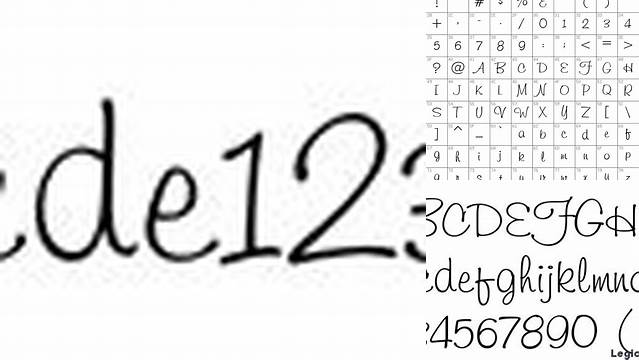
Freehand 591 Std Regular Font: A Comprehensive Guide
Understanding the Essence of Freehand 591 Std Regular
Guys, let's dive headfirst into the world of typography, shall we? We're going to explore the Freehand 591 Std Regular font – a true gem in the vast universe of fonts. Understanding what makes this font tick is the first step. Essentially, Freehand 591 Std Regular is a typeface, a family of fonts, specifically designed with a 'regular' weight. This means it sits comfortably in the middle ground, not too bold, not too light. It's designed to be easily readable and versatile, making it a popular choice for various applications, from body text in books and articles to headings and display text. The 'Std' in the name refers to 'Standard', hinting at its broad usability. The 'Freehand' part, well, that suggests a certain style, hinting at a hand-drawn or sketched aesthetic. The beauty of Freehand 591 Std Regular lies in its simplicity and readability. It avoids unnecessary flourishes, ensuring the focus remains on the message being conveyed. This characteristic makes it a strong contender for projects needing a clean and approachable visual presentation. The font's designers clearly prioritized clarity and legibility, making it an excellent option for long-form content and general communication needs. Its design supports readability and the flow of words which makes it an optimal choice for digital and printed formats. The style generally leans towards the contemporary, making it a versatile choice across various industries and projects. Whether it’s for branding, website design, or print materials, this font's functionality and aesthetic appeal can be leveraged to communicate with clarity and style. It is made to be flexible and works well with many different graphic elements, and in combination with other fonts. The visual nature of Freehand 591 Std Regular also makes it easy to pair with other styles, offering flexibility and control when designing complex layouts.
Freehand 591 Std Regular: Design and Characteristics
Alright, let's get into the nitty-gritty of what makes Freehand 591 Std Regular tick. This font boasts a design that leans towards the contemporary, though it has its own distinctive personality. Its characteristics include clean lines, a balanced weight, and a focus on readability. This means that it is a font that generally avoids excessively ornate details. Instead, its emphasis is on the simplicity of the letterforms. The designers have carefully crafted each character to ensure that it's easily recognizable, even at smaller sizes. Its 'regular' weight provides a balanced appearance, not too light to appear faint, and not too bold to be overwhelming. This characteristic enhances its versatility and makes it applicable in a wide variety of visual contexts. The proportions of the letters are well-considered, with ample space between them and generous counters (the enclosed spaces within letters like 'o' or 'e'), to enhance legibility. The strokes of the letterforms are typically of consistent weight, which supports a uniform and harmonious visual experience. The spacing and kerning of the letters are carefully considered to optimize the flow of text, a crucial element in any successful typeface. These design choices make the Freehand 591 Std Regular an ideal choice for projects where readability is paramount. Further, the font provides a neutral canvas that allows the focus to be on the message rather than on the design of the letters. This can be very beneficial, especially if you are working with complex layouts or you are trying to make a certain message stand out. The features of this font can also contribute to the professionalism and sophistication of your visual content.
Applications: Where Freehand 591 Std Regular Shines
So, where can you actually use Freehand 591 Std Regular to its full potential, you ask? This font truly shines in a variety of applications. It's a fantastic choice for body text in books, articles, and any long-form content where readability is key. The clean and balanced design of the font makes it easy on the eyes, enhancing the reading experience. Think about it – imagine this font used in the latest bestseller, a compelling blog post, or a detailed user manual. It lends itself well to digital and print media, bringing consistency and readability across all platforms. In web design, this font can be used for headings, subheadings, and body text, ensuring that your website content is both readable and visually appealing. Its contemporary style fits well with modern design aesthetics, helping to create a fresh and engaging online presence. In branding, Freehand 591 Std Regular can be used in various areas. For example, in the creation of logos, taglines, and brand materials. Its versatility allows it to adapt to a variety of brand styles, from minimalist to professional, without overshadowing your messaging. This font is not restricted by any specific industry. From corporate communications to creative endeavors, it has proven itself to be adaptable. It can add a professional and friendly touch to your branding and communication, making it versatile for various kinds of projects. Regardless of your field, Freehand 591 Std Regular is a valuable tool for designers and writers.
Pairing Freehand 591 Std Regular with Other Fonts
One of the cool things about Freehand 591 Std Regular is its ability to play well with others. Choosing the right font pairings can dramatically elevate the visual appeal and readability of your design. A good starting point is to consider contrasting styles. If you're using Freehand 591 Std Regular for body text, you could pair it with a bolder, more eye-catching font for headlines. This creates visual hierarchy, guiding the reader's eye and emphasizing the most important information. The subtle nature of Freehand 591 Std Regular enables it to blend seamlessly with more assertive fonts. When considering pairings, think about the mood you want to create. If your project calls for a professional and clean look, you might pair Freehand 591 Std Regular with a sans-serif font for headings. This will create a consistent and modern aesthetic. If you are going for a more artistic or casual look, experimenting with a serif font for headlines can add a touch of elegance and personality. The goal is to find a balance where the two fonts complement each other, rather than competing for attention. You can use online tools to experiment with font pairings and preview their appearance. These tools provide valuable insights and help you visualize your font choices. The key is to consider the overall tone and objectives of your project and find a combination that effectively communicates your message.
Freehand 591 Std Regular and Web Design Best Practices
Let's discuss how Freehand 591 Std Regular fits into the world of web design. For web designers, this font is a valuable asset for multiple reasons. Its high readability is a huge plus. Online, people often scan content quickly, so the clarity of your font can greatly impact whether your audience engages with your website. Freehand 591 Std Regular ensures that text is easy to read, even at smaller sizes, making it perfect for body text, subheadings, and even navigation elements. In terms of SEO, the legibility that Freehand 591 Std Regular provides can indirectly improve your search ranking. Readers will stay longer on your site if they find your content easy to read. This will increase the time on site and decrease the bounce rate, which are crucial ranking factors. Moreover, the font can be used to establish a clean, professional aesthetic, a critical factor for user experience. A well-designed website with clear typography enhances user trust. You can also customize your website by modifying your Freehand 591 Std Regular to align with your brand identity. Make sure the font is responsive and looks good on all devices. Choose appropriate font sizes, line spacing, and color contrast to enhance readability on different screens. Always test your website on various devices to ensure consistency in your users’ experience. In short, employing Freehand 591 Std Regular effectively can contribute to an aesthetically pleasing and user-friendly website.
Accessibility Considerations for Freehand 591 Std Regular
Okay, let's talk about accessibility. Using Freehand 591 Std Regular in an accessible manner is essential to ensure your content is inclusive and can be enjoyed by all. One of the biggest benefits of this font is its high readability, which is a boon for people with visual impairments. It's designed with clear letterforms and a regular weight, reducing the risk of eye strain and making text easier to decipher. When you're using Freehand 591 Std Regular, pay attention to font size and contrast. Ensure that your font size is large enough for comfortable reading, especially for older users or those with visual impairments. Also, use sufficient contrast between the text and the background. Avoid light text on a light background or dark text on a dark background, as this can be challenging to read. Consider incorporating text alternatives for images and other non-text elements. Screen readers will use these descriptions to convey the meaning of the visual elements to visually impaired users. Ensure your website design is responsive, which means it adapts to different screen sizes and resolutions. This makes your content accessible on a wide range of devices. Consider the needs of users with cognitive disabilities. Use clear and concise language. Avoid complex sentence structures. Structure your content with headings, subheadings, and bullet points to improve readability. Remember that accessibility is an ongoing process, not a one-time fix. Always test your content with different users and devices. By being mindful of these aspects, you can make your website more welcoming and accessible to everyone.
Exploring the Variations: Freehand 591 Family
Let's delve deeper into the family! Freehand 591 Std Regular is the foundation, but there might be more variations. These variations could include different weights like bold or light, or they could come in other styles. Exploring these variations can expand your typographic toolkit, allowing for greater design flexibility. If you are designing for diverse projects, you could use Freehand 591 Std Regular for body text and a bolder variant for headings. This creates a clear visual hierarchy, making it easier for readers to scan and understand the content. Knowing all variations will allow you to achieve a cohesive and consistent design. The variations might also include different widths or condensed styles. You might choose to use these if space is limited. Each variation has its unique characteristics that can be customized to fit your design needs. When you have these options, you can bring more nuance to your design. Always check the available character sets of these font variations. Some variants may have more extended language support than others. This is especially crucial if you are targeting a global audience. With a comprehensive understanding of the whole family, you can strategically build a complete visual identity.
Freehand 591 Std Regular in Branding: Crafting Brand Identity
Let's explore how Freehand 591 Std Regular can be used in branding! This font is very adaptable, making it a great tool for shaping a brand's identity. You could use it in your logo, tagline, or on your website. It gives a professional, yet friendly, appearance. The choice of font is essential in shaping brand recognition. You want a font that not only looks good, but also reflects the brand's values. Freehand 591 Std Regular can be part of that image. You can use it to portray the brand's tone of voice. The font's simplicity and legibility work well for many businesses. This is especially true if you want a reliable and clear brand image. The versatility of Freehand 591 Std Regular means that it can be customized and incorporated into various design materials. The style of the font makes it flexible. You can use it to create a consistent visual identity across all branding materials, including websites, brochures, and social media. Always make sure that the font fits the brand personality and target audience. Consistency is critical for building brand recognition. If the brand is modern, the font will help deliver that message. The choice of font also can provide a feeling of sophistication and professionalism.
Continuous Learning: Keeping Up with Typography Trends
Let's consider the importance of continued learning, especially regarding Freehand 591 Std Regular. Always stay informed about the newest developments in typography. Join forums and keep up to date on any new information. Experiment with the latest design trends. Learn how the different fonts interact with each other. Keep up to date about technology. Try out new design software. The more you learn, the better you will be. The information will help you to make better design choices. Through learning, you will be able to use the font better. The better your knowledge, the better your design work. It helps to improve your design skills. By continuous learning, you will be able to use the font effectively.